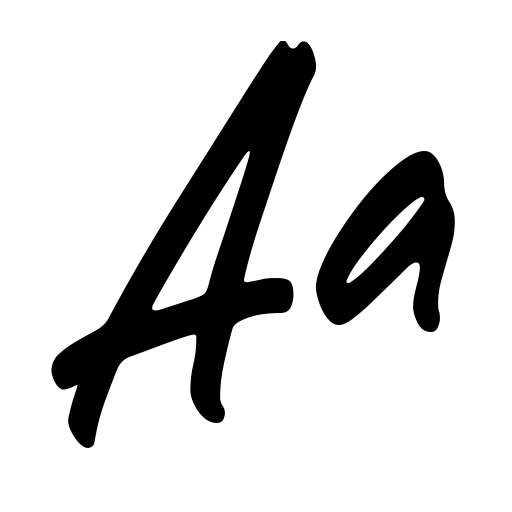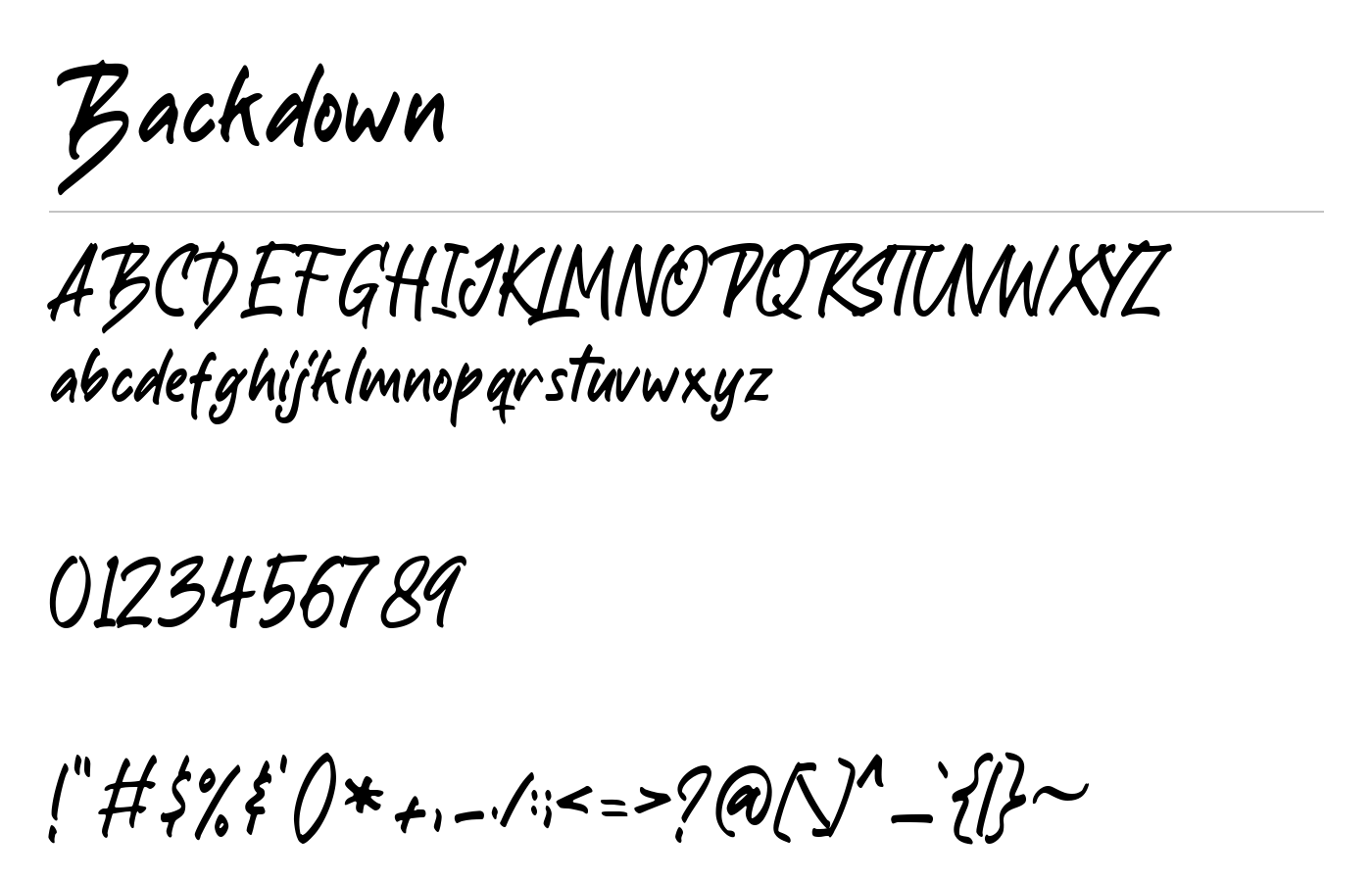
Backdown is a lively and dynamic script font that features a casual, hand-painted style with energetic strokes and varying thicknesses. Its slightly condensed forms and playful letter shapes give it a modern, informal personality, making it ideal for creative branding, posters, and any design needing a personal, expressive touch. This font works best in headlines, logos, and packaging where a bold, handwritten feel can capture attention and convey approachability.
Backdown Font